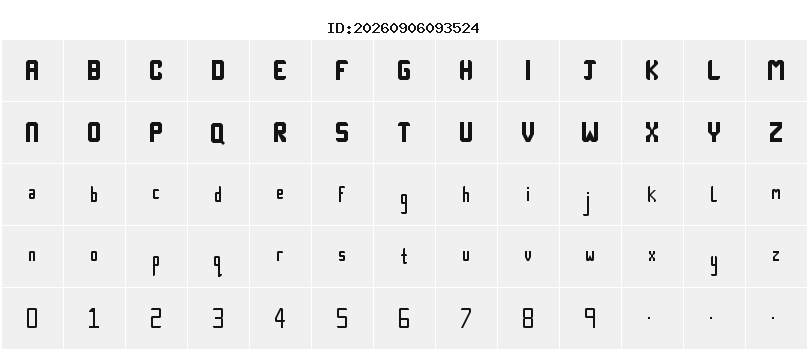
• Font Name: Tech-nick
• Font ID: FontStruct Tech-nick
• Full Font Name: Tech-nick Regular
• PostScript Name: Tech-nick
• Character Count: 101
• Designer: SPECiAL--DELiVERY
• Description: “Tech-nick” was built with FontStruct
About Tech-nick.ttf
Tech-nick.ttf is a modern, elegant sans-serif font designed for ultimate readability and visual harmony. Perfect for branding, headlines, web design, and print materials.